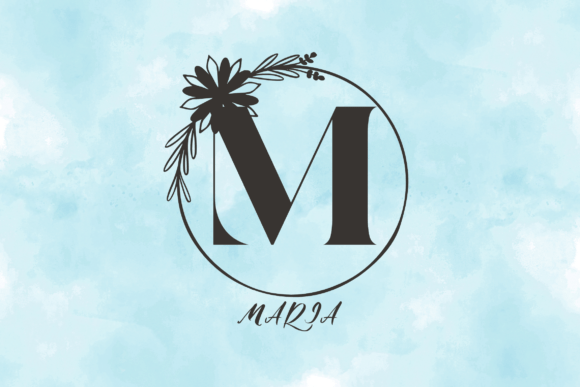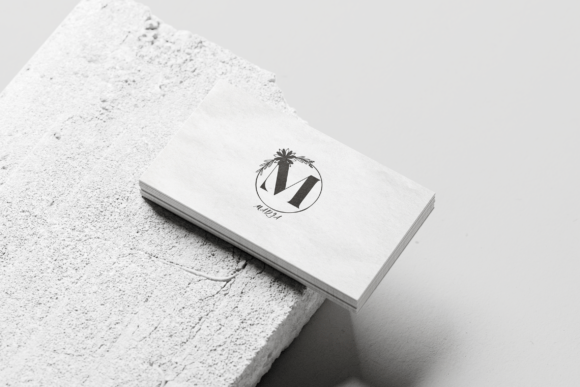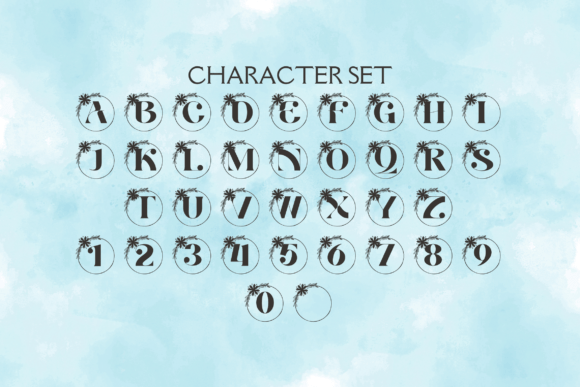
The Monogram Magic of Aria: Elevating Designs with Elegance
I still remember the design project that led me to discover Aria Monogram Font. I was working on a custom wedding invitation suite, and my client requested a luxurious, high-end feel that would make their special day truly unforgettable. As I scrolled through font after font, nothing seemed quite right – until I stumbled upon Aria. Its refined letter shapes, ornate detailing, and impeccable polish won me over, and I knew I had found the perfect fit. In this article, I’ll share my love for Aria Monogram Font, its capabilities, and how you can make the most of it in your designs.
Here’s what I love about Aria Monogram Font:
- ✨ Elegant and refined: Aria’s sophisticated design makes it perfect for upscale projects, from wedding invitations to high-end branding.
- ✅ Versatile: With its range of OpenType features, glyphs, and stylistic alternates, Aria can be adapted to various design contexts.
- 💫 Attention to detail: The font’s intricate detailing and polished letter shapes ensure a luxurious feel in any design.
And here are a few quirks to keep in mind:
- 🤔 Learning curve: With so many features and options, it may take some time to get familiar with Aria’s capabilities.
- ⚠️ Legibility at small sizes: As with many ornate fonts, Aria may lose legibility when used at very small sizes.
The Story Behind Aria: Designer Inspiration
Aria Monogram Font was crafted with the intention of providing designers with a versatile, luxurious typeface for creating stunning monograms and emblems. Inspired by traditional calligraphy and ornate typography, Aria’s designer aimed to create a font that would bring a touch of exclusivity and elegance to any design. Whether you’re working on a wedding invitation, a high-end brand identity, or a bespoke craft, Aria Monogram Font is the perfect choice.
| Font Name | Aria Monogram Font |
| Author | dmletter31 |
| What makes Aria Monogram Font unique? | Aria’s polished letter shapes, ornate detailing, and range of OpenType features make it an exceptional choice for designing monograms, emblems, and individualized insignia. |
| Is Aria Monogram Font difficult to use? | While Aria offers a range of features, it may take some time to get familiar with its capabilities. With practice, you’ll be able to unlock its full potential. |